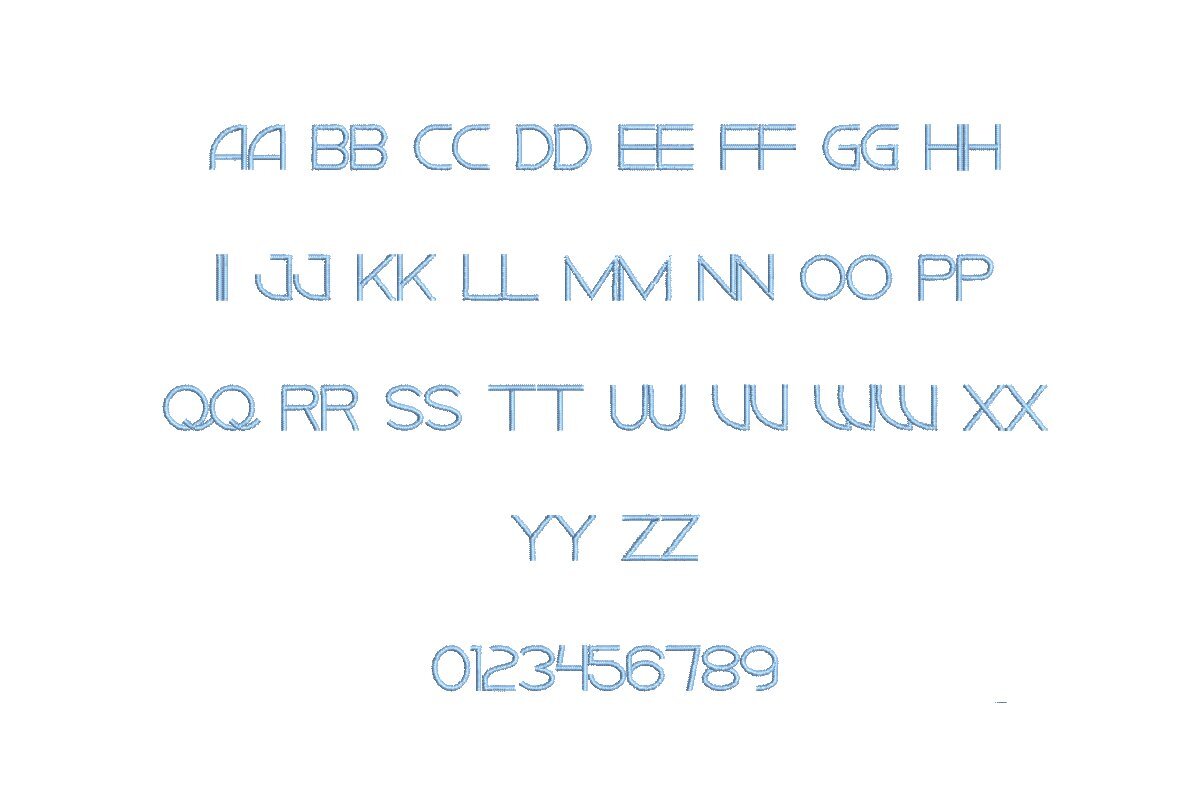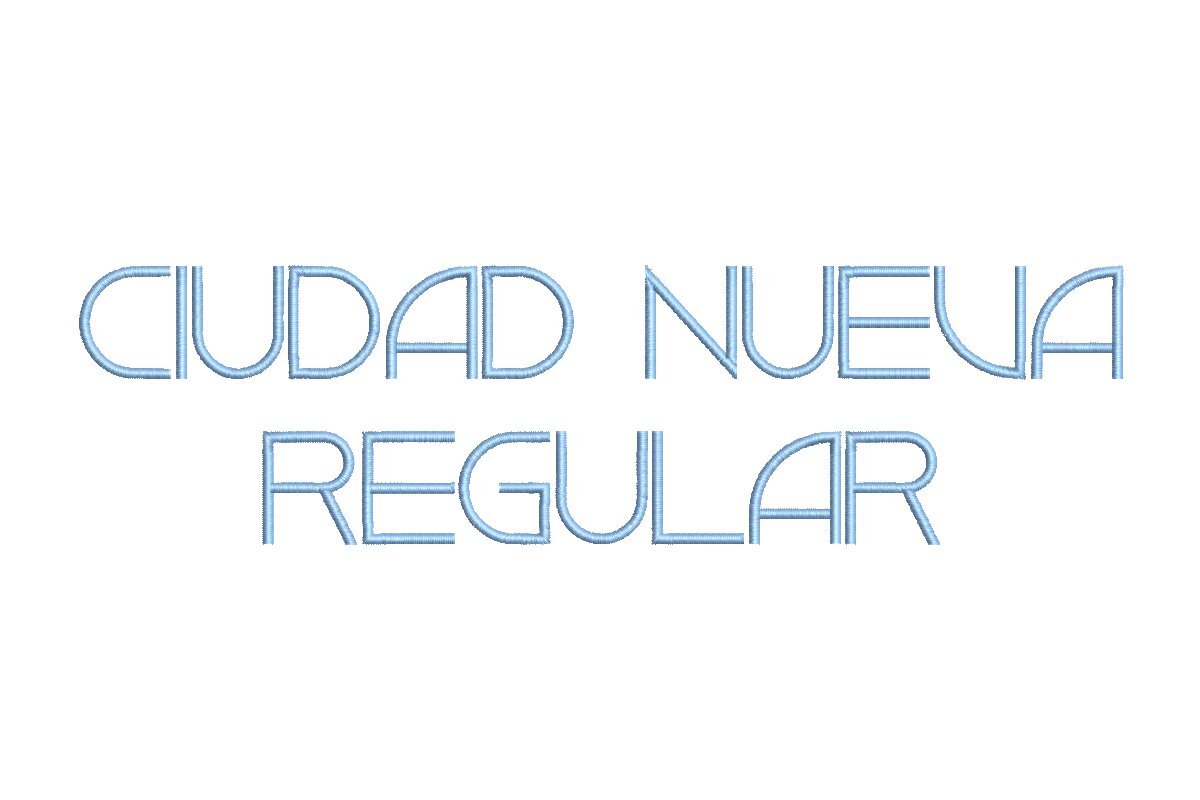
Introducing Ciudad Nueva RG ESA Font - Your Embroidery Muse! Meticulously designed for seamless integration with Wilcom Studio e4.5.6 and Hatch 3 versions and beyond, this font ignites your embroidery creativity. Its refined, elegant design adds a touch of sophistication to your projects, ensuring they captivate with ease. Achieve expert-level embroidery with this user-friendly digitized font, delivering precision and excellence in every stitch. Dive into a world of unlimited creative potential with Ciudad Nueva RG ESA Font, and elevate your Wilcom Studio and Hatch software to new heights. Choose extraordinary over ordinary - upgrade today and embark on your embroidery masterpiece journey.